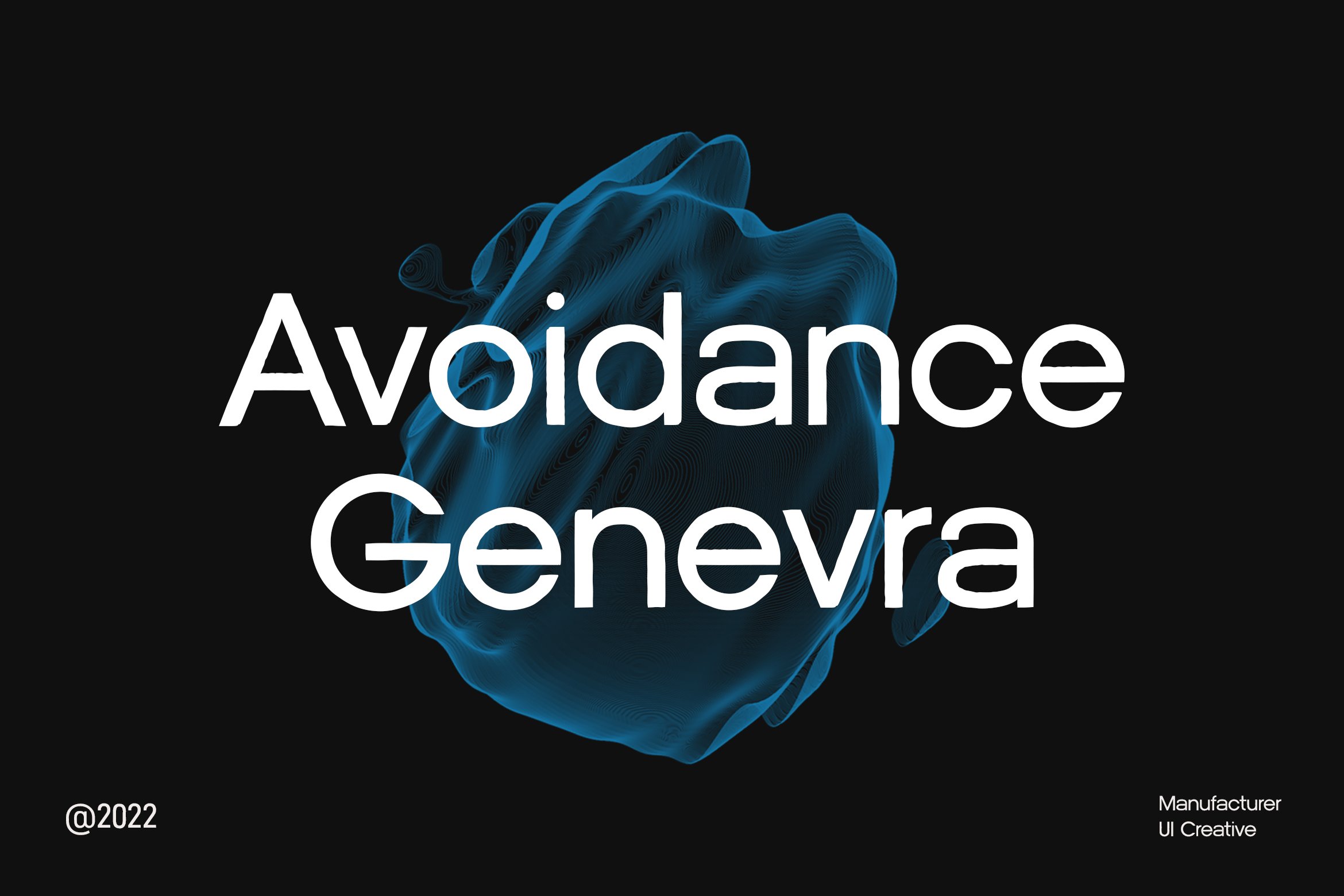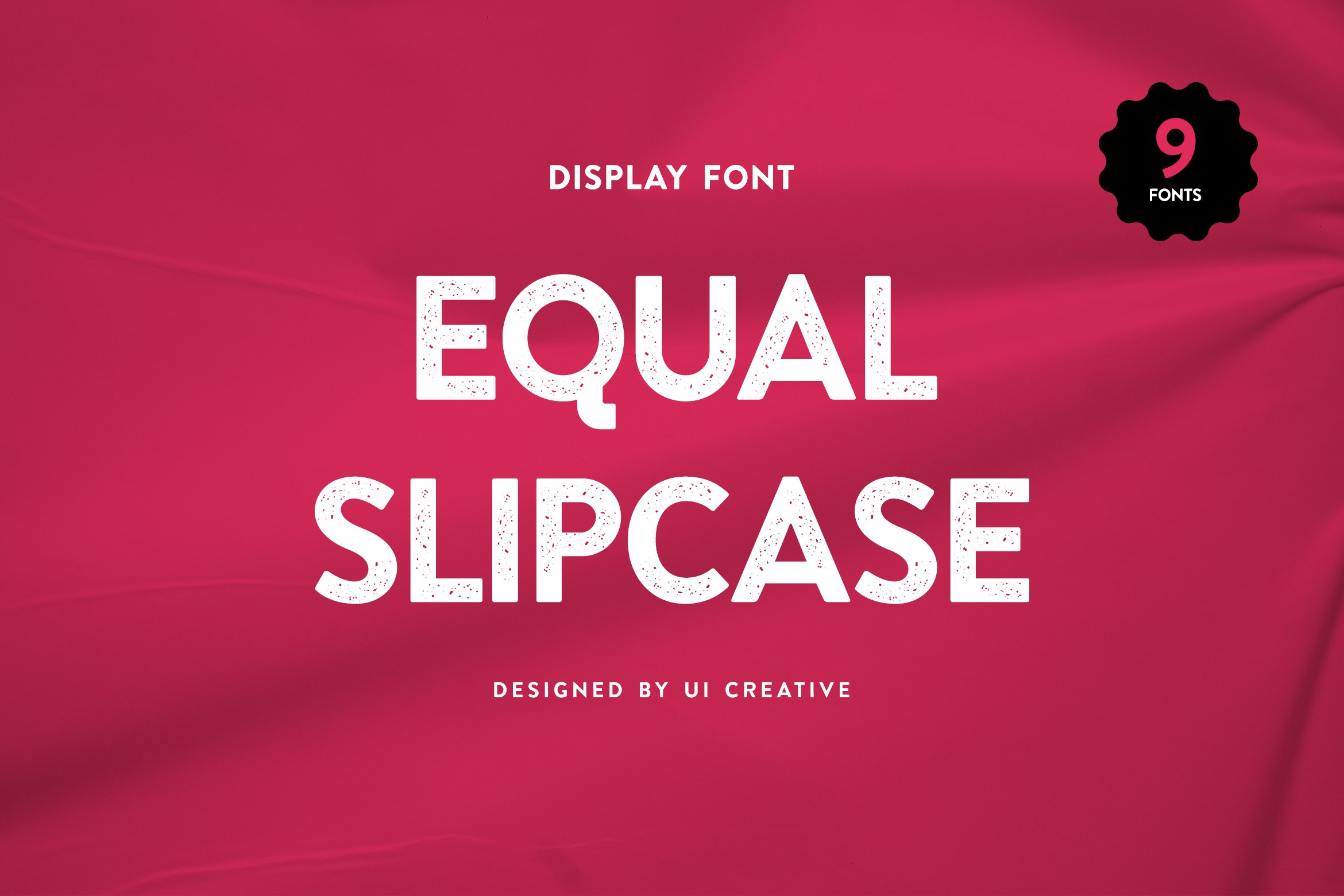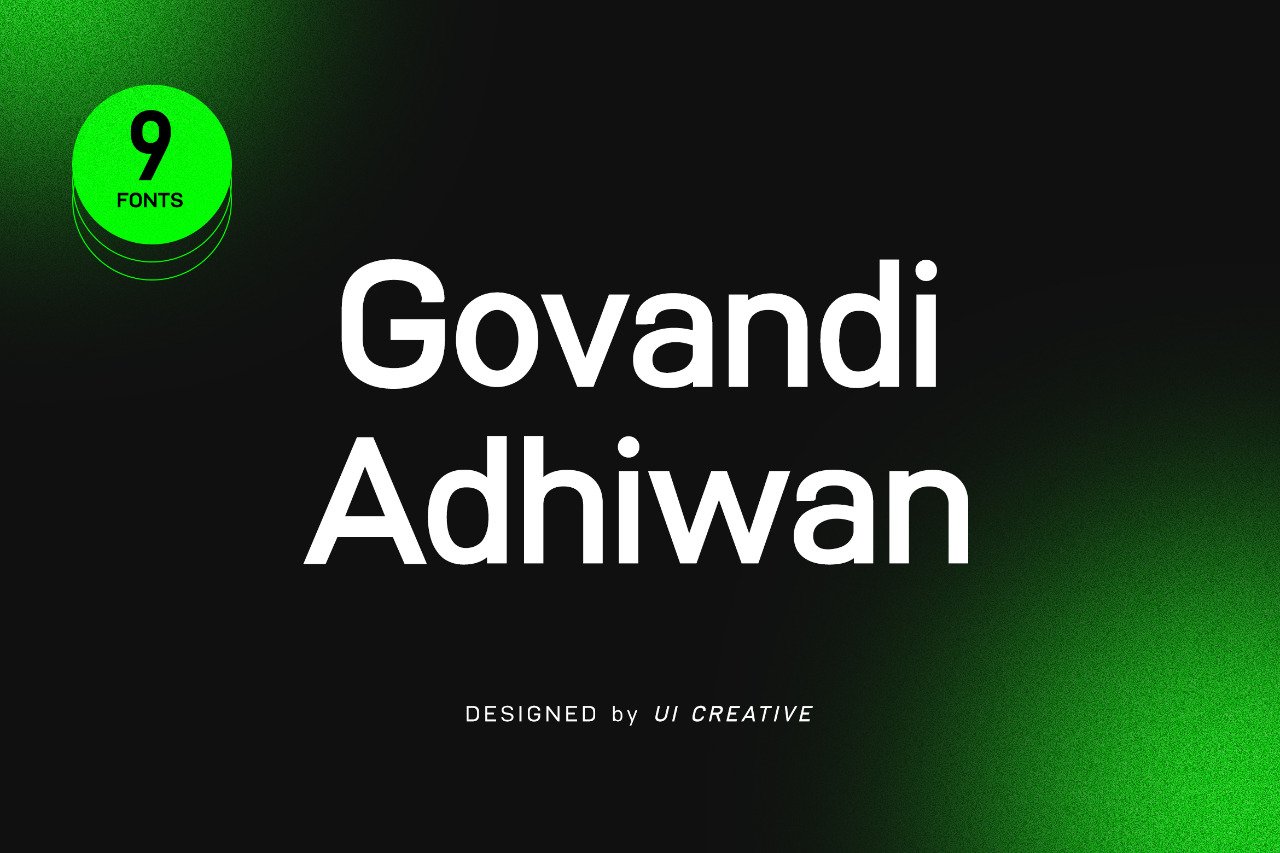
10 Best Fonts for Newsletter
Modern Serif Font and Modern Sans Serif Font are good options for newsletters. What is the main point for something to read that you wish someone to read? READABLE! So, the main point before you put a title in a newsletter is finding a readable font. It does not only have to be readable but also clean and clear. The reason is that you will not only show a title to everyone but also a complete story behind a title. It should ask everyone to keep their eyes on it until the information has finished to write down. Getting confused to find the font? We will help you here. Check this out!
1. Equal Slipcase Modern Serif Font
Modern serif Font
Equal Slipcase Sans Serif Font
Well, what are the components to be had in a newsletter?
a. Title
b. Content
c. Pictue
Make sure your font collaborates well with these components. Our first best font would look great as a title. Newsletter design can be either very simple or complex. But there are a few basics that all newsletters should have, besides the content. As the modern serif font, this first pick font would help your audience to be interested to read your newsletter. After you get the audience’s heart, you can influence them to buy your products. Is it so simple?
Specifically designed for luxurious brands, this sophisticated font with thick, block-like serifs and angular strokes that result in uniquely shaped corners can make your body text look more stylized and expressive.
2. Govandi Adhiwan Modern San Serif Font
Modern Sans Serif Font
Govandi Adhiwan Sans Serif Font
Modern Sans Serif font that feels beautiful classy, elegant, and modern. This font is perfectly suited for a wide variety of projects, such as signature, stationery, logo, wedding, typography quotes, magazine or book cover, website header, clothing, branding, packaging design, and more. Also, fashion-related branding or editorial design displays both masculine and feminine qualities.
Choosing the best font for your newsletter can guarantee that your message is properly conveyed and will evoke the right emotions from readers. So, this font would look perfect for your modern target audiences. You can build their modern impression too only by using this font.
3. Avoidance Genevra
Modern Serif Font
Avoidance Genevra Sans Serif Font Family
Just like our previous pick-up font, this one is perfect for modern, casual, masculine target audiences. Whether you want to be simple and serious or creative and casual, your font selection will be responsible for the overall look and feel of your newsletter, make sure it is easy to read. Your newsletter font should be clear and easy to read. If you should use loud or elaborate fonts such as decorative or display fonts, use them only for your header. Your header is mainly for attracting attention while the rest of your text is for reading, so highly legible and readable fonts such as serif fonts and sans serif fonts are the best way to go for your body text.
Even if you want to combine the font, just pick two types of fonts only. The headline can be this font and the content can be another one. Before you print it, as some people to read it. If it is less attractive, especially when you use too many words in a flat layout like a newspaper, be ready to get less attention.
4. Gabiant
Modern Serif Font
Gabiant Sans Serif Font
There are two types of newsletter, the printed one and the email one. If you’re creating an email newsletter, choose web-safe fonts or fonts that render correctly online regardless of where the email will be read. You can also use web fonts or fonts that are downloaded by web browsers and then applied to the text as the message is being opened and the web page is being loaded. A web font is specifically created for websites and is usually stored on a web server.
However, if you don’t want to get stuck and confused on browsing, pick the font that we entered you here. Its thin, low-contrast strokes are perfect for making the text flow in your paragraphs, and when used in all caps or with additional ligatures, this font can help you create strong, eye-catching headlines.
5. Flagoria Calintha
Modern Serif Font
Flagoria Calintha Serif Font Family
As we already discussed before, the main point to use any font as your newsletter content, it should be readable. The main copy for most newsletters is set between 10 and 14 points, so you should choose a font that will allow readers to view your newsletter naturally and won’t require them to squint or zoom in on their screen just to be able to read it. Fonts with a taller x-height, normal kerning, wider set width, and shorter ascenders and descenders will be much more legible at smaller sizes. That’s why I recommend you ask someone to read it first before you print it.
6. Walkie Valkyrie
Modern Serif Font
Walkie Valkyrie Serif Font Family
The higher level of customers needs something different. Don’t give up because all of your worries are solved here. This font interprets your professional service and great details for anything. It gains more trust from customers, especially women at work. They consist of a variety of content and sections and can include interactive features such as GIFs and animations that you can match with fun, distinctive fonts for your headers and headlines. Since email newsletters generally have very little body copy, you can focus on making your headers and headlines more visually appealing.